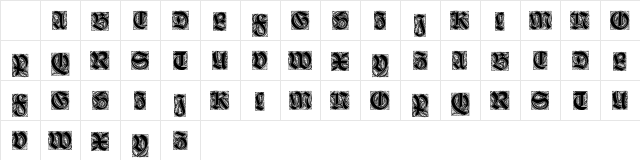
Complete Ehmcke-Schwabacher Initialen Regular glyph index. Displaying only characters natively supported by Ehmcke-Schwabacher Initialen Regular font.
Ehmcke-Schwabacher Initialen is a composed and adaptable typeface that performs quietly and consistently across a wide range of design contexts.